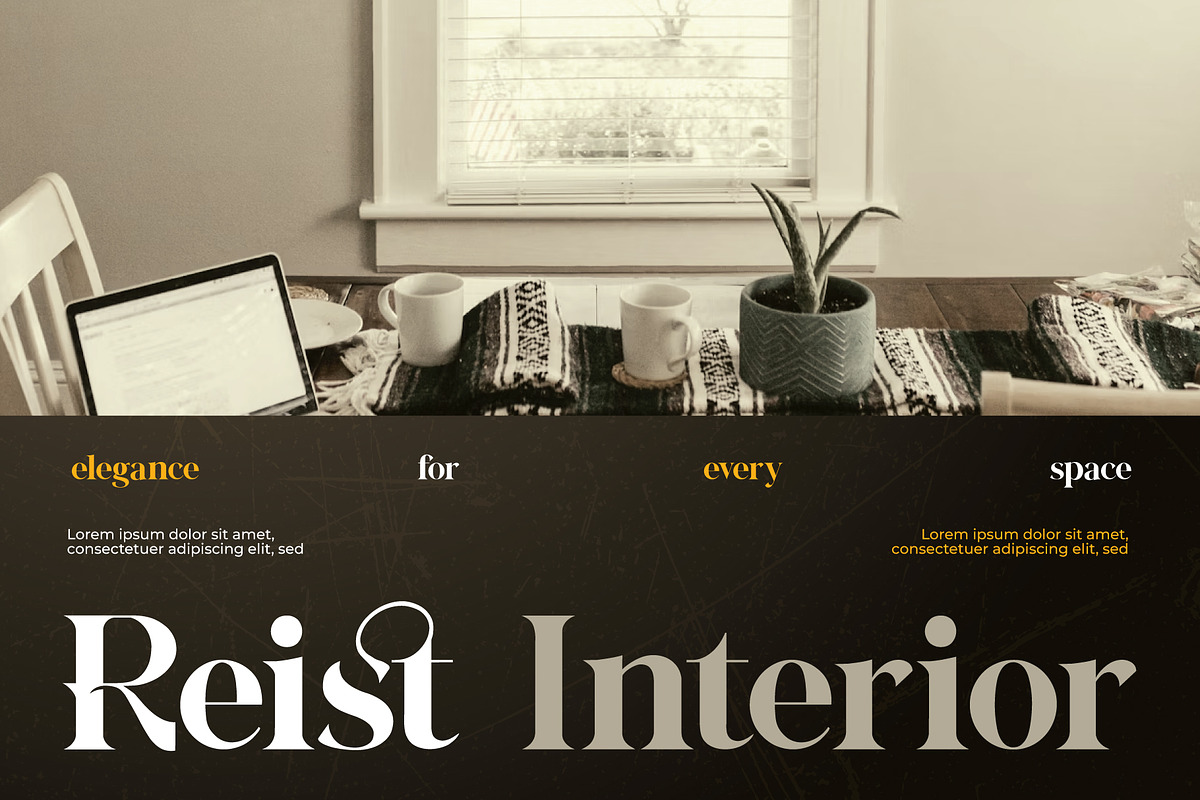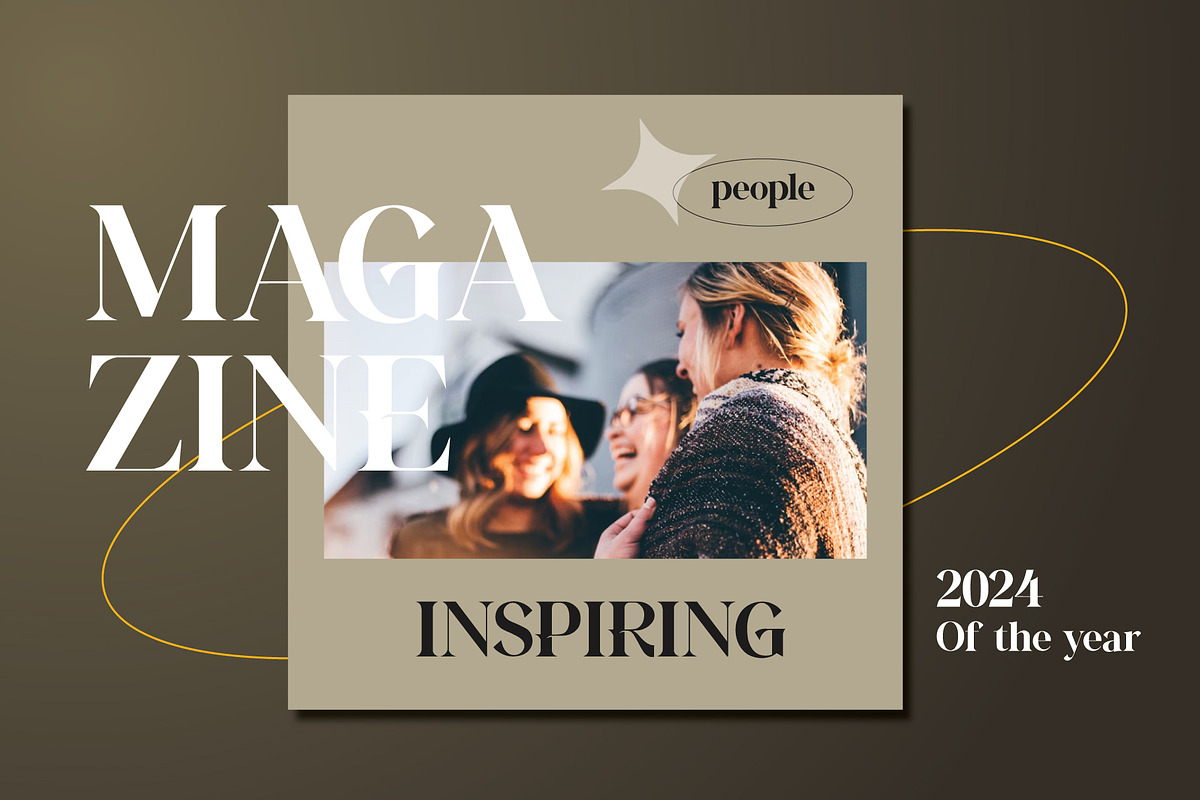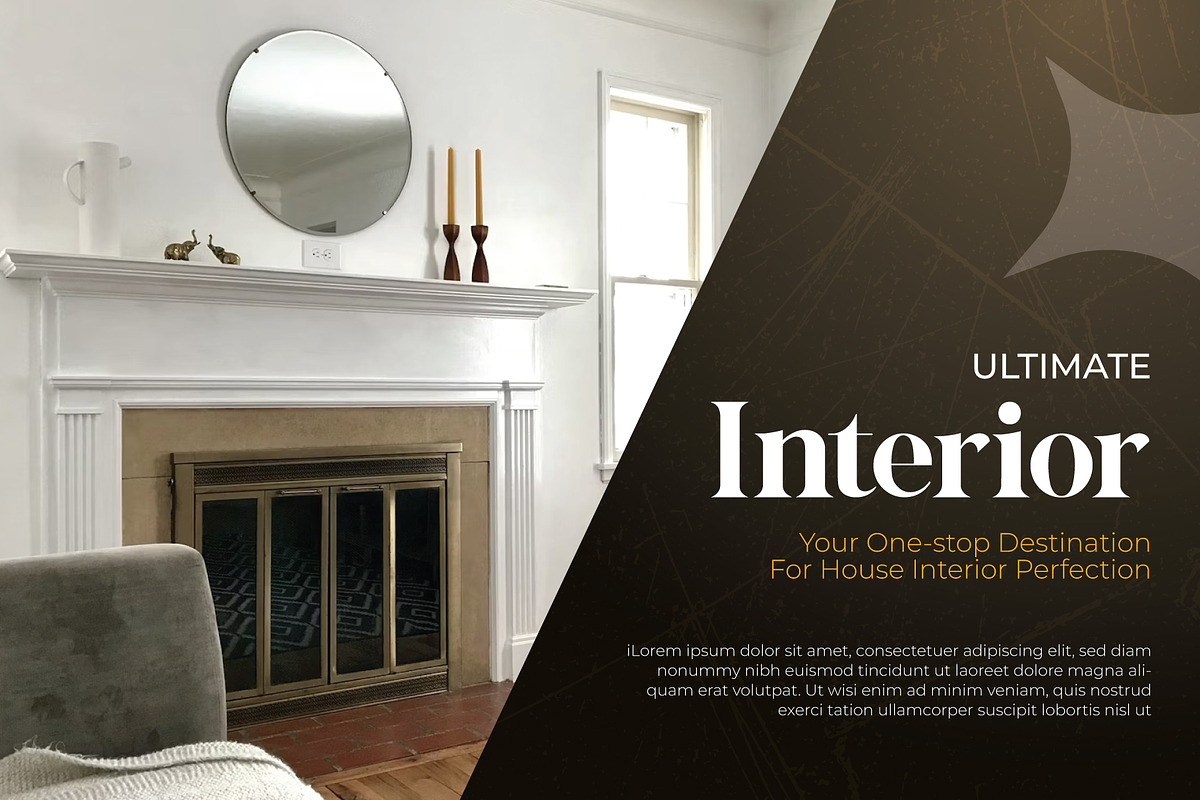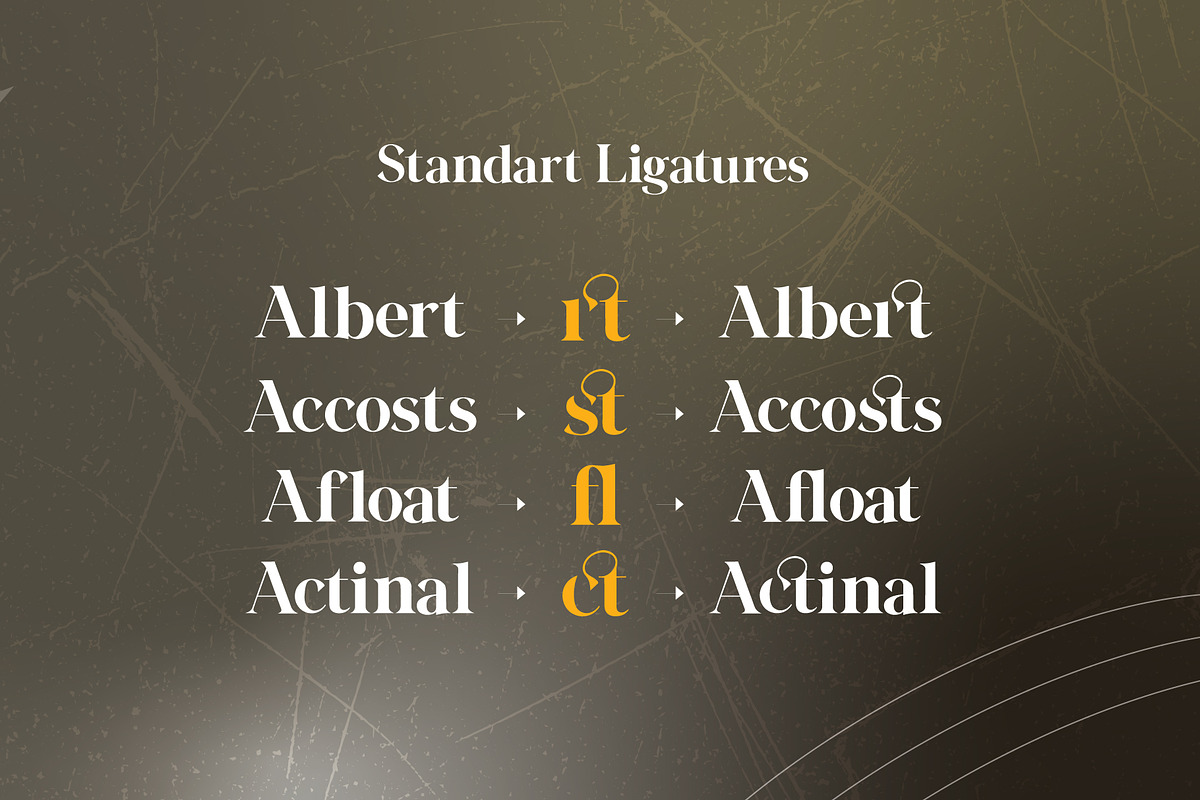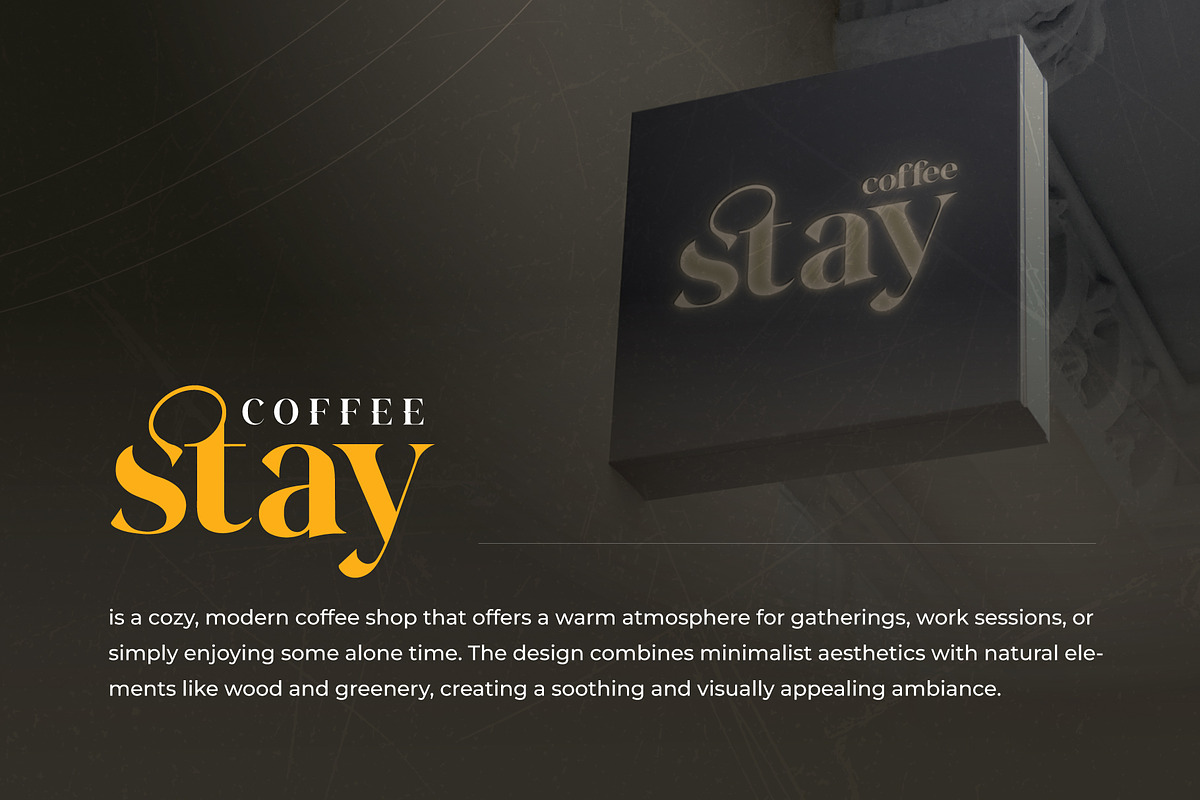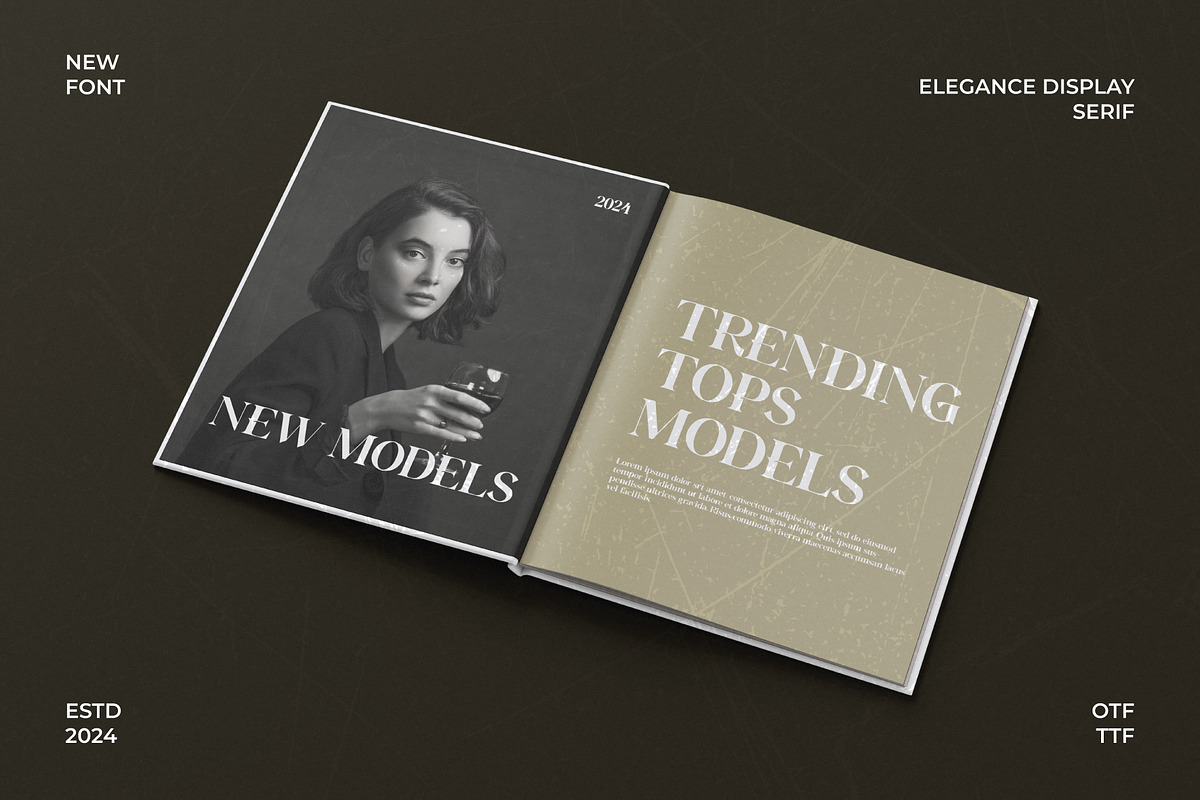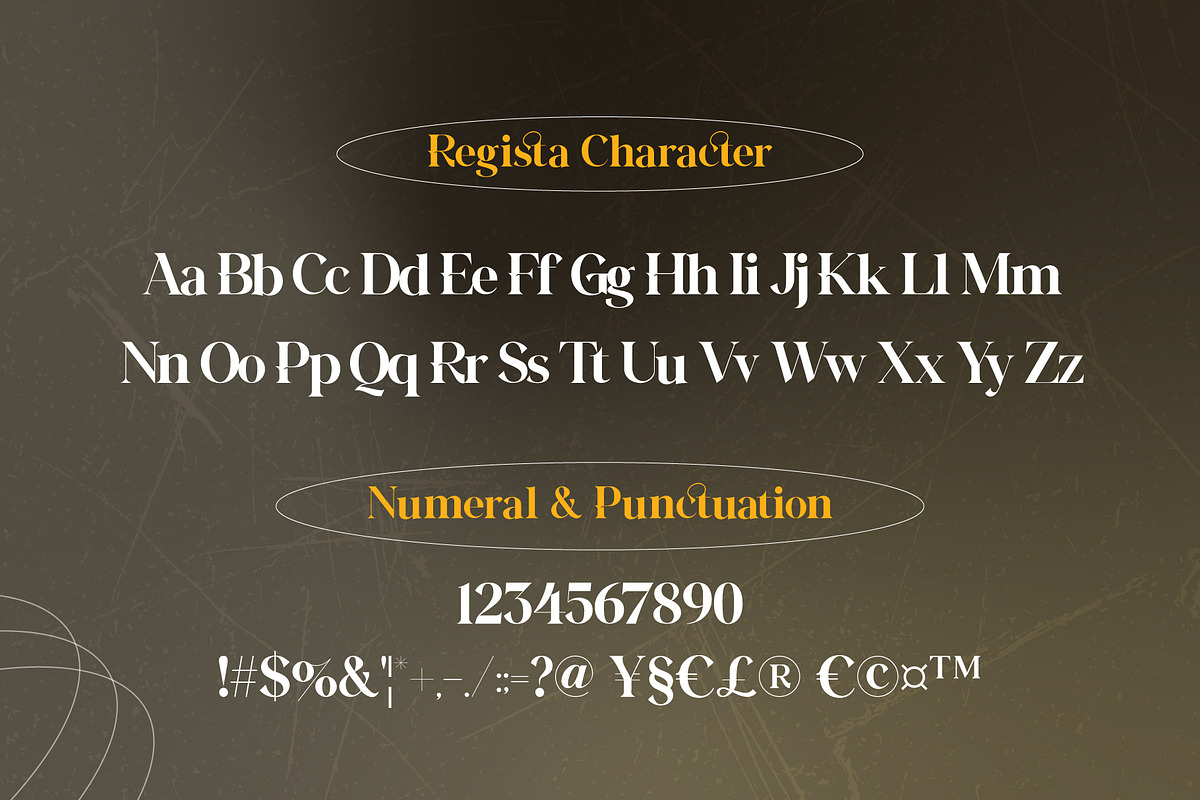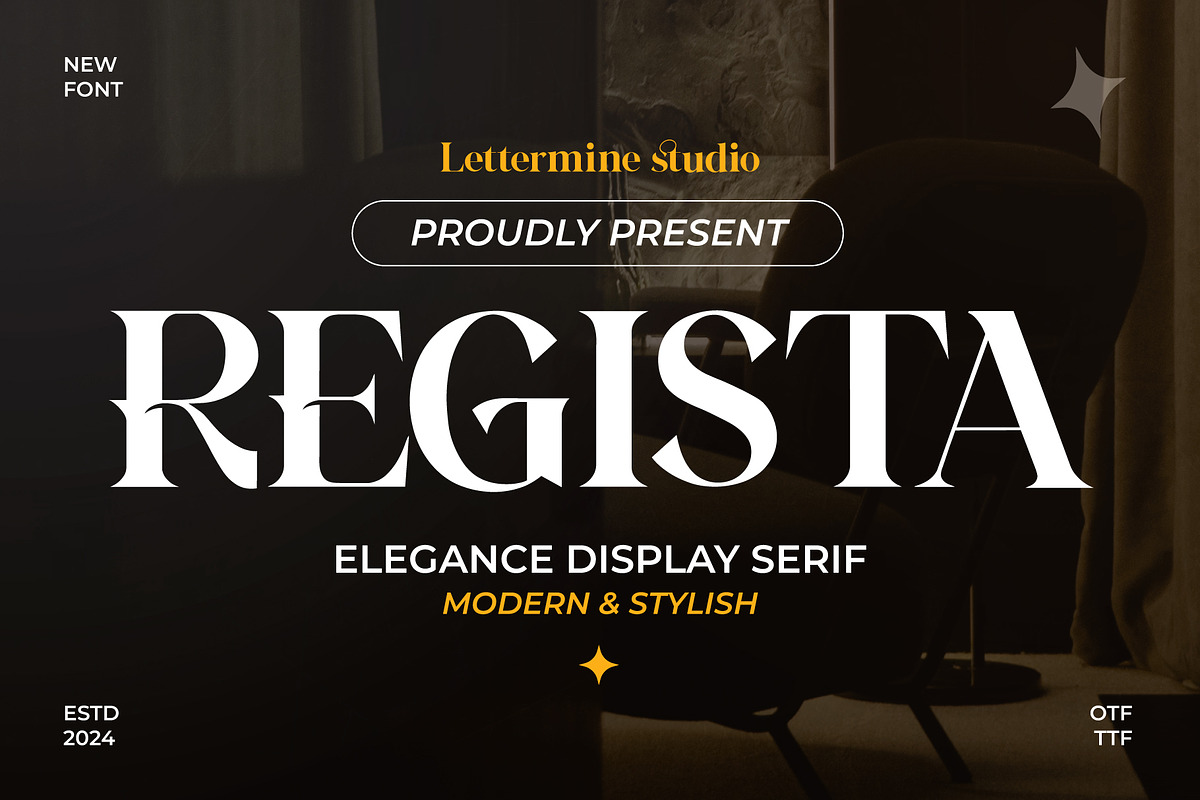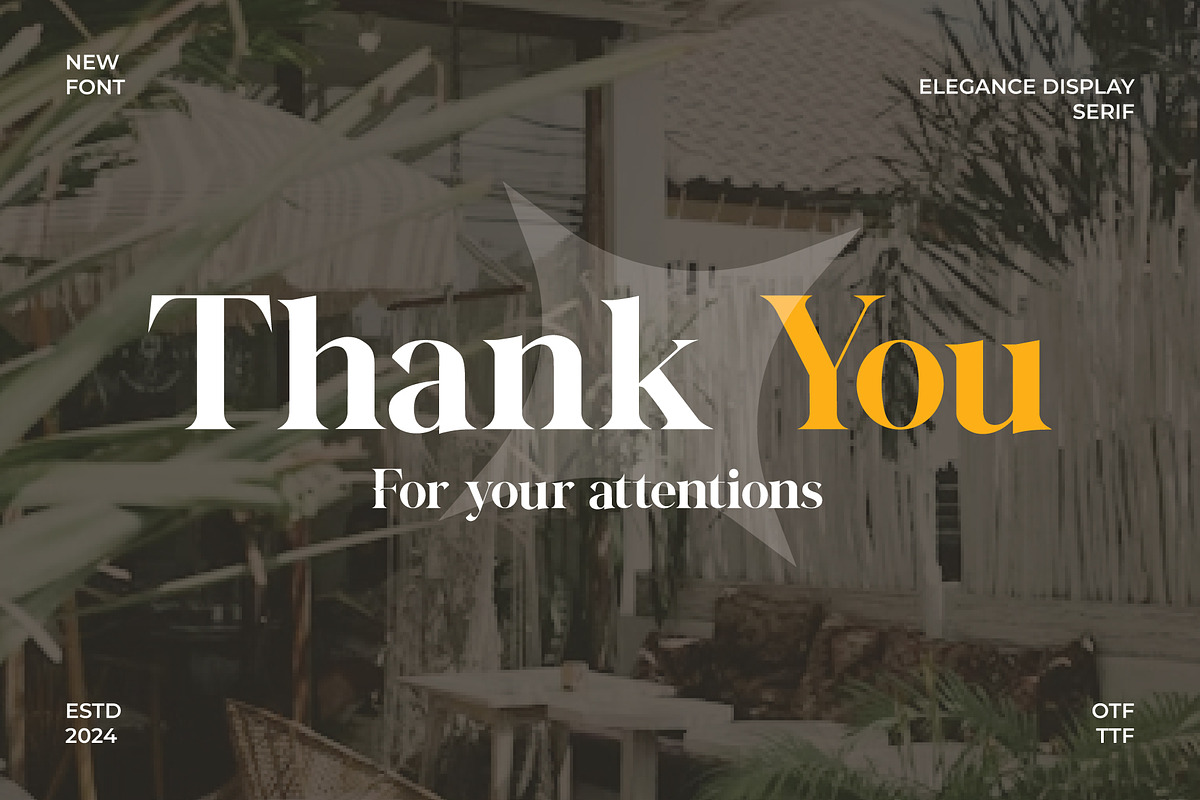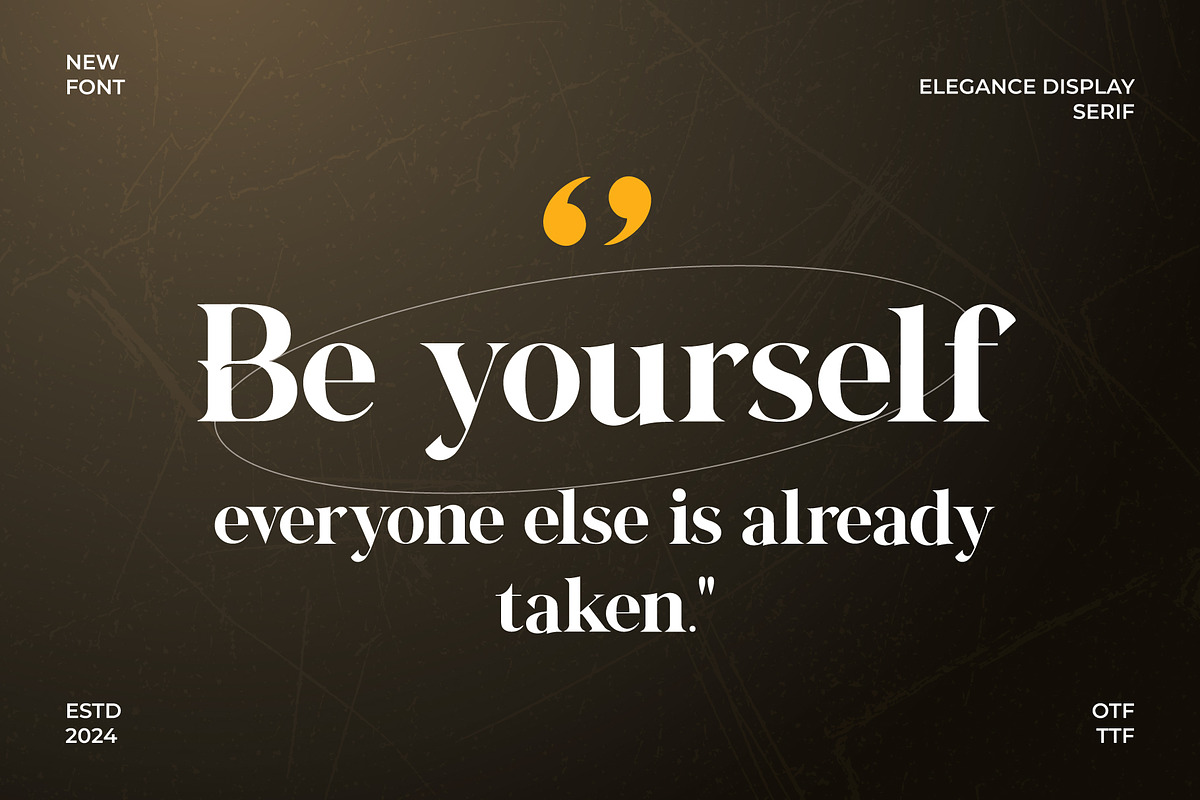
Regista - Display Serif
Regista – Display Serif
Regista is a sophisticated display serif font that blends elegance with modern flair. Each character is meticulously designed with sharp, bold serifs and clean lines, offering a striking yet timeless appearance. This font’s refined style and versatility make it an excellent choice for branding, editorial designs, and any project that demands a touch of class.
- Stylish Serifs: Graceful and bold serif details that exude confidence and sophistication.
- Complete Character Set: Includes uppercase, lowercase, numbers, punctuation, and symbols, ensuring seamless usability.
Elevate your designs with Regista’s bold sophistication. Whether for logos, headlines, or editorial layouts, Regista delivers an unforgettable visual impact. Let your creativity shine with Regista!